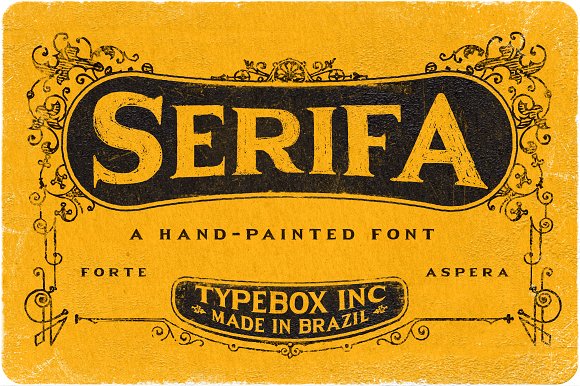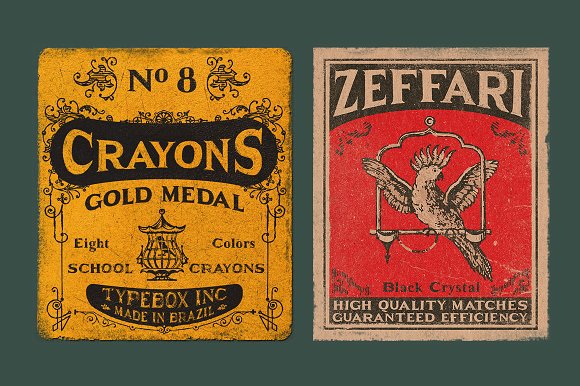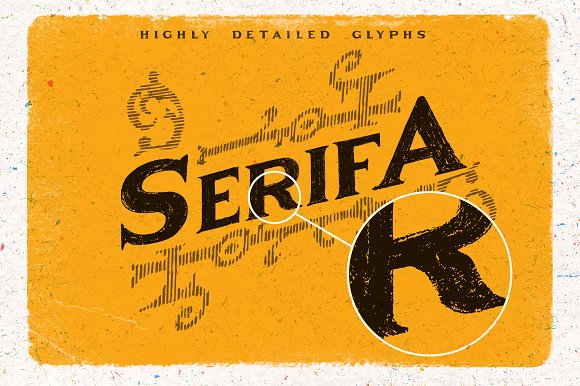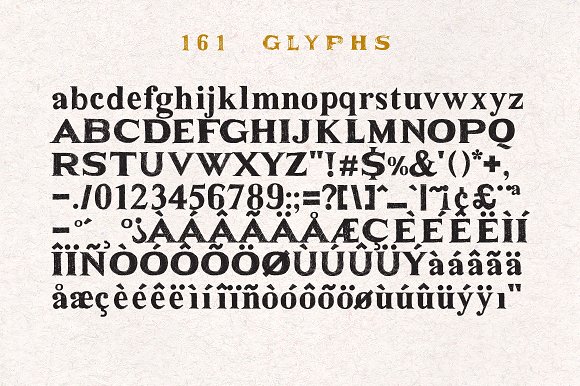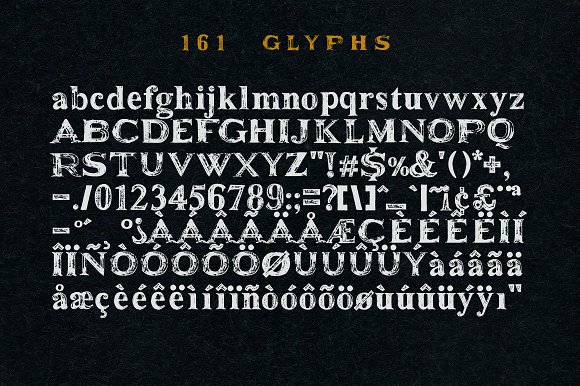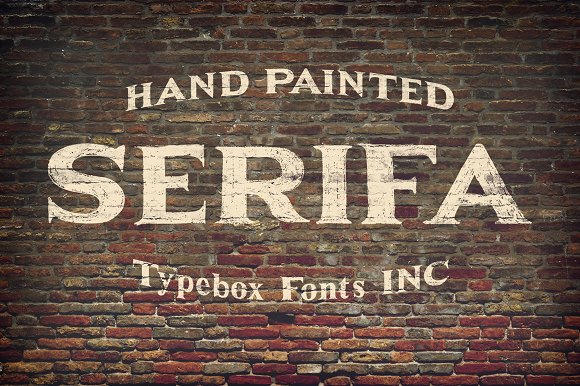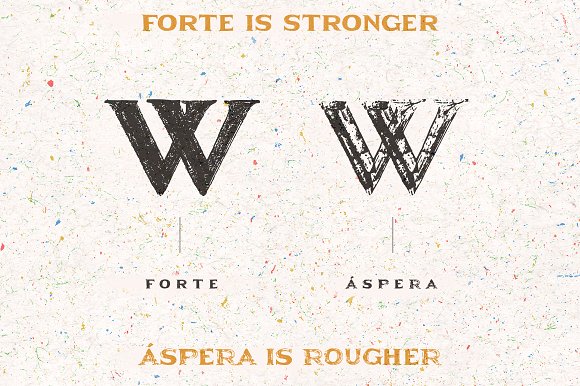
Serifa Typeface
Serifa
A serifed, vernacular typography with 161 glyphs inspired on hand painted letters seen on the walls of brazilian cities.
This pack contains 2 versions of SERIFA:
Serifa Forte – A stronger version of the font, but still have apparent brush marks
Serifa Áspera – A rougher style of the same font, use both fonts for a seamless realistic look